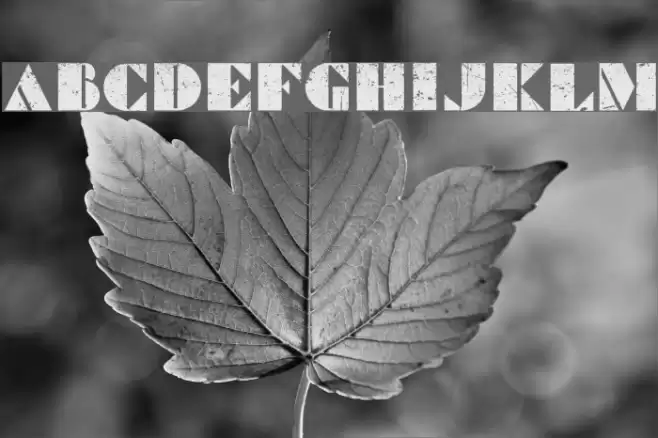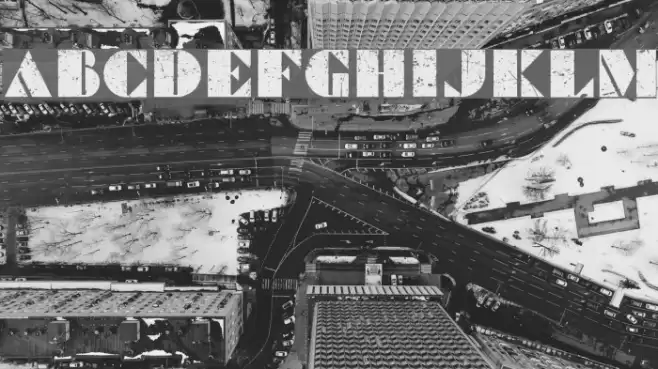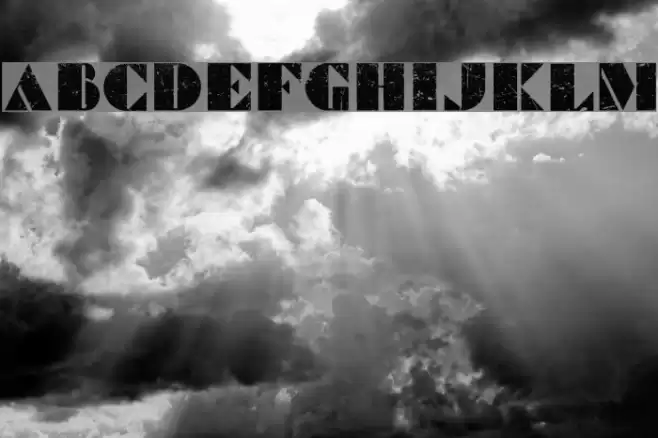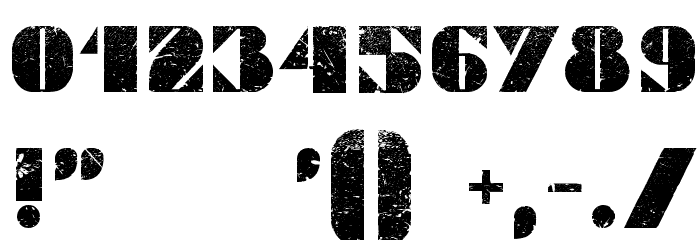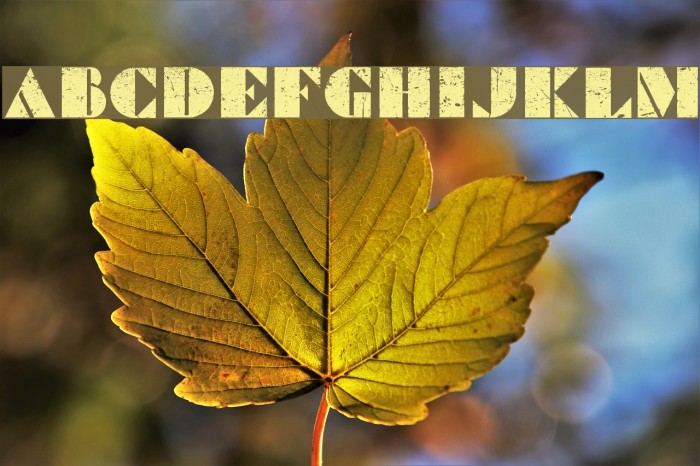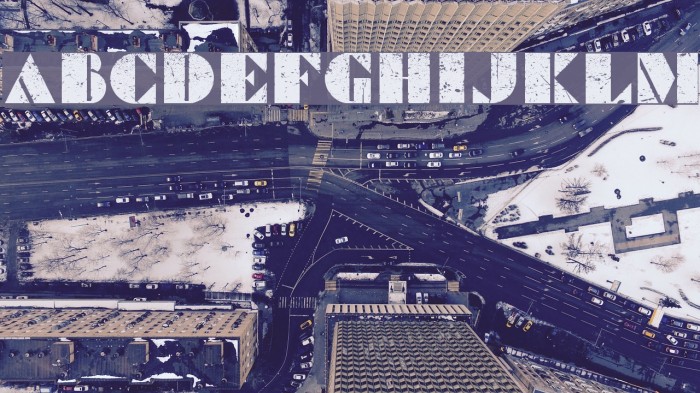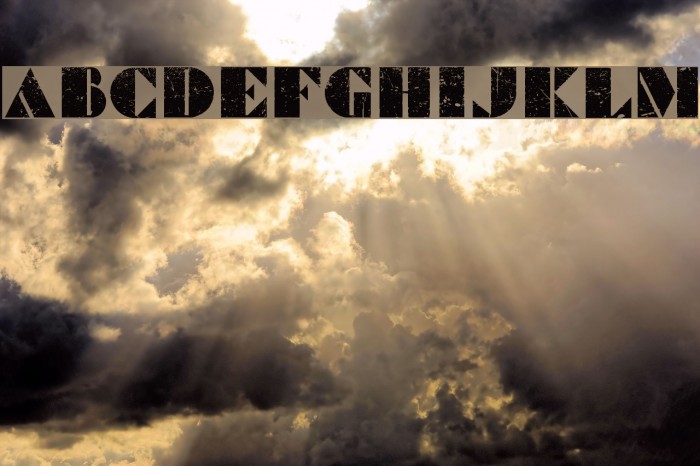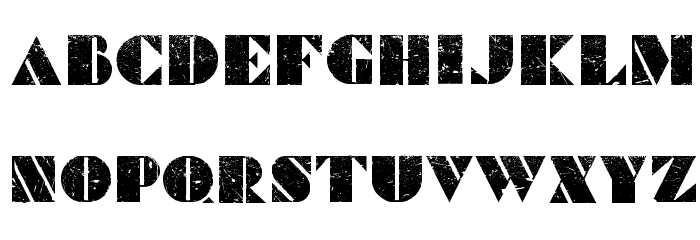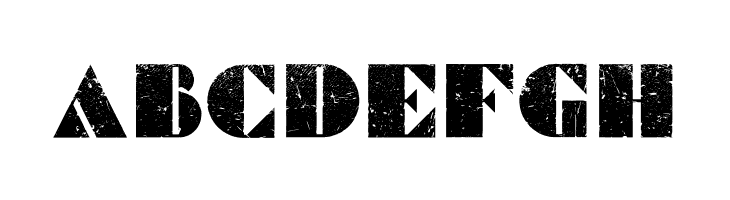
Commanders Grunged Regular Font
Commanders Grunged Regular Description
This font features a bold, distressed style with a grunge texture that gives it a rugged, worn appearance. The characters are uppercase and have a strong, impactful presence, making it ideal for designs that require a bold statement. The texture within each letter adds a unique, artistic flair, reminiscent of vintage or industrial themes. The font's rough edges and irregular patterns contribute to its edgy and dynamic look, suitable for projects that aim to convey strength and authenticity.
A bold, distressed font with a grunge texture and rugged appearance from Uncategorized fonts.
- Proposed Projects: Ideal for posters, album covers, branding for edgy products, or any design needing a bold, vintage-industrial look.
- Overall Style: Vintage, Industrial